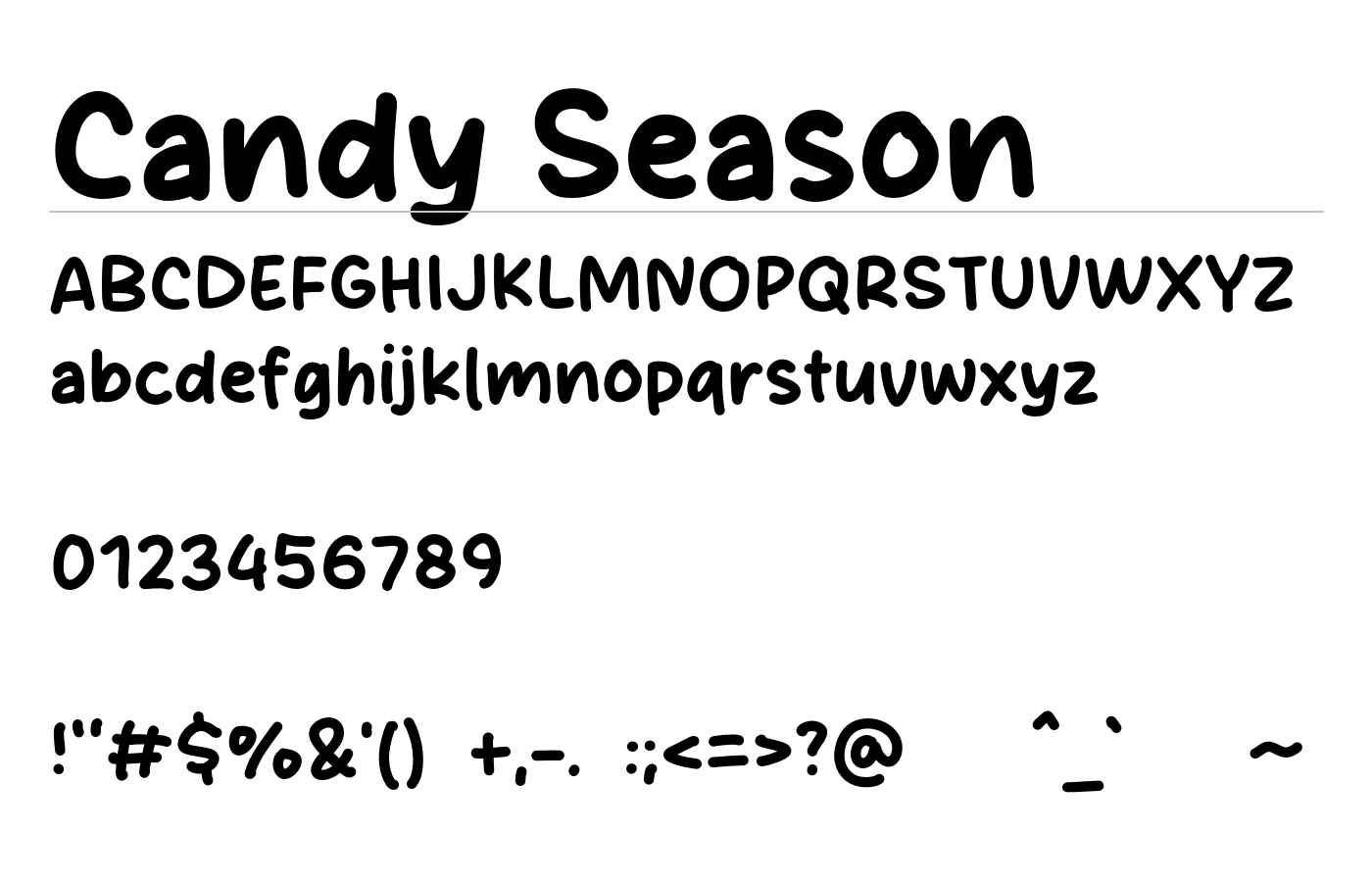
Candy Season Font is a playful and casual sans serif typeface with rounded, slightly irregular letterforms that give it a friendly, hand-drawn feel. Its moderate weight and open, airy spacing make it easy to read while maintaining a warm, approachable personality, perfect for informal and creative designs. This font works well in children’s products, fun branding, and any project needing a cheerful, personal touch.
Candy Season Font
About Candy Season Font
| Font family | Candy Season Font |